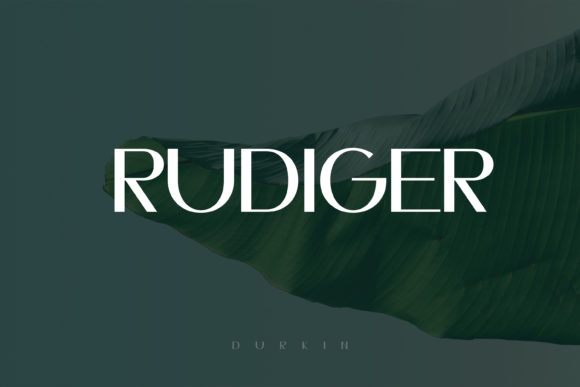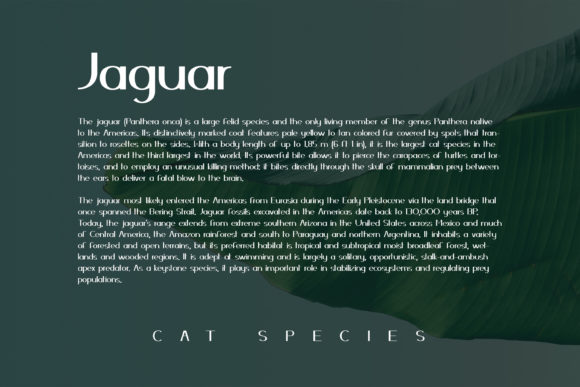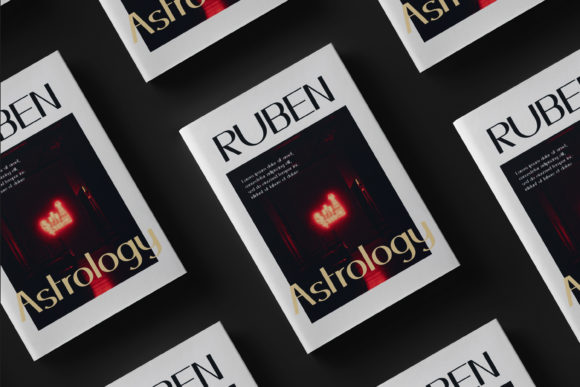
Introduction to Durkin Font
Durkin is a minimal and neat sans serif font.
Key Features of Durkin Font
Why Choose Durkin Font?
Durkin Font offers exceptional quality and versatility, making it a valuable addition to your design toolkit. Whether you’re creating for personal projects or commercial use, Durkin Font delivers professional results.